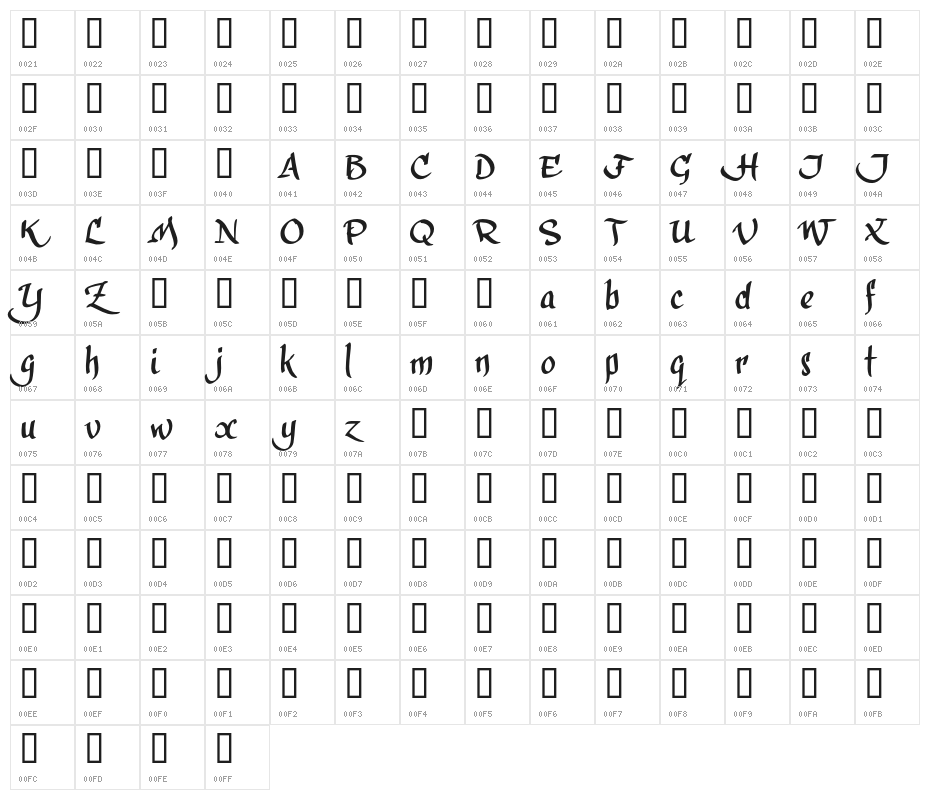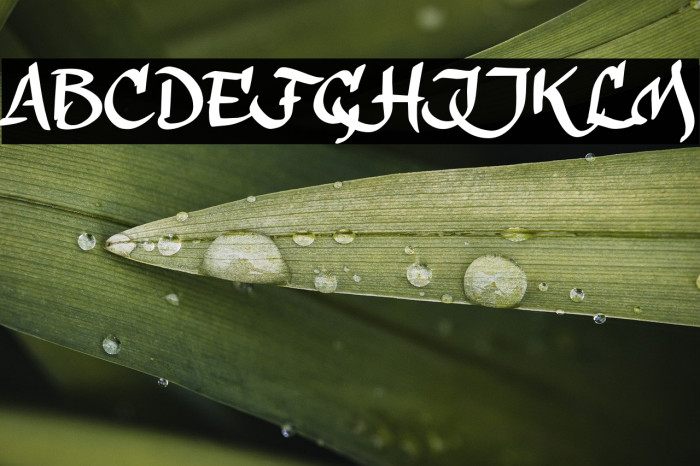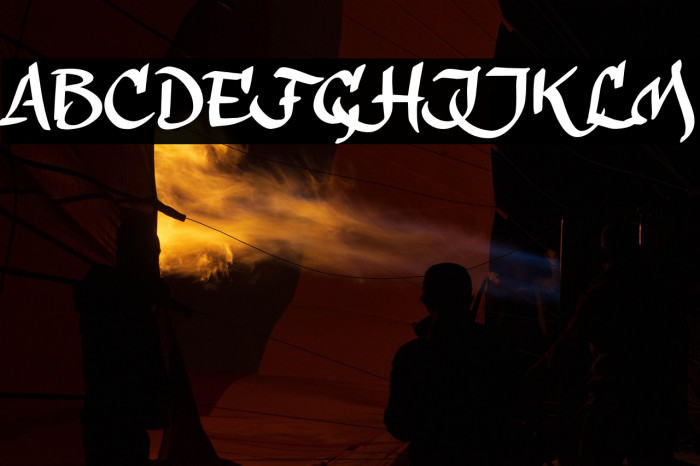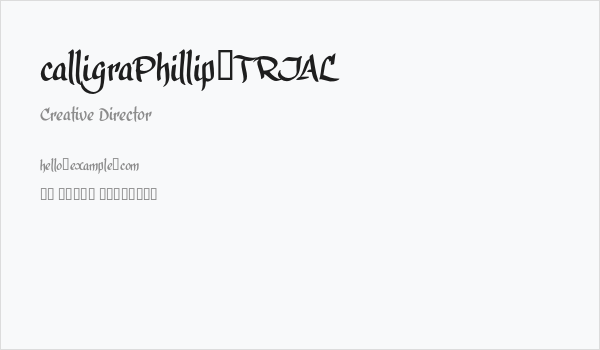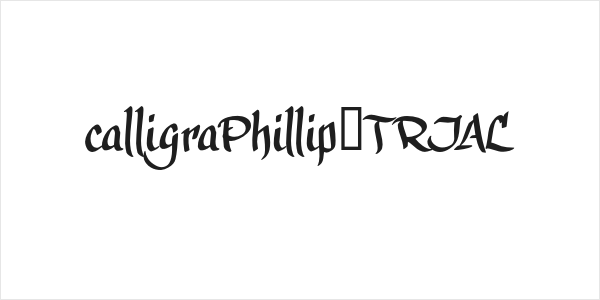
calligraPhillip_TRIAL Font
calligraPhillip_TRIAL Description
This font exhibits a dynamic and artistic flair, reminiscent of traditional calligraphy with a modern twist. The uppercase letters are bold and commanding, featuring sharp angles and fluid strokes that convey a sense of movement and elegance. The lowercase letters maintain a consistent style, with smooth curves and a slightly condensed form that enhances readability while preserving the artistic essence. The font's overall appearance is both sophisticated and expressive, making it suitable for projects that require a touch of elegance and creativity. Its unique character shapes and flowing lines make it stand out, providing a distinctive look that can enhance various design elements.